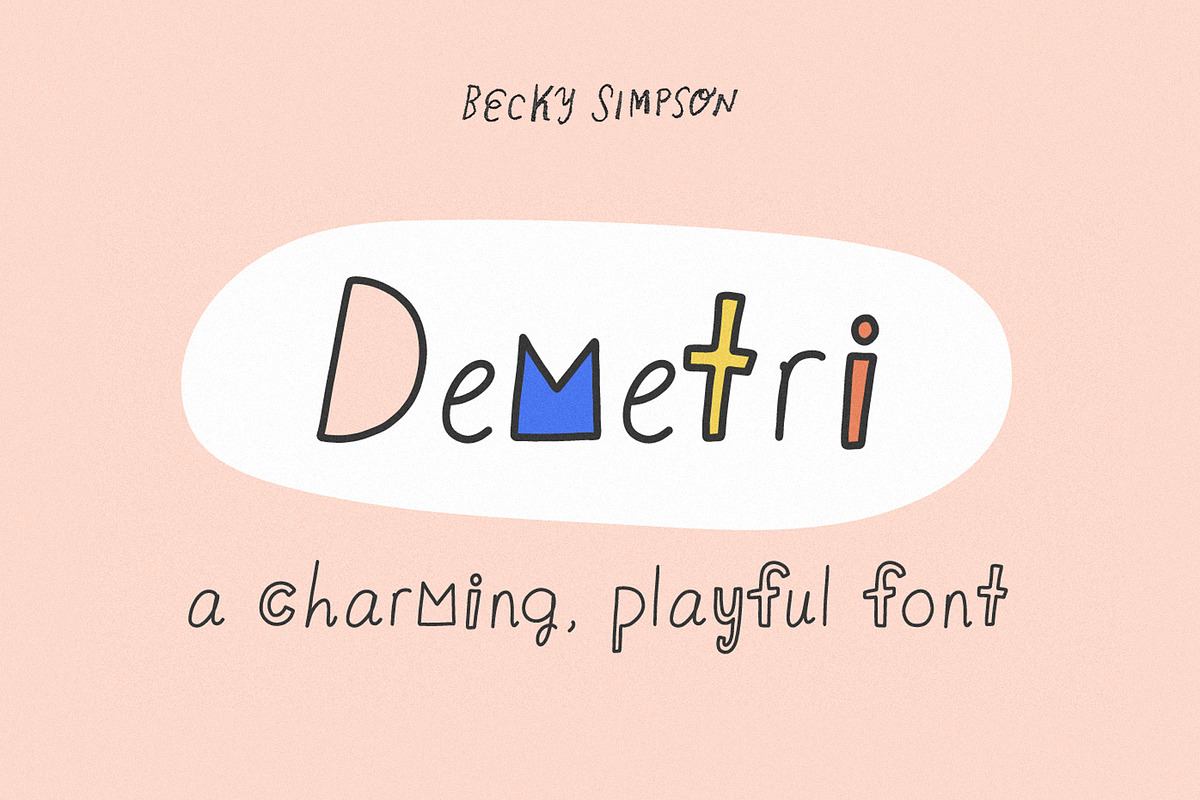
Demetri • Playful, Quirky Font Free Download
Demetri Playful, Quirky Font Free Download
Demetri Playful, Quirky Font Free Download is a fun and whimsical typeface designed with bold, quirky shapes and a playful feel. Its rounded edges and lively characters make it perfect for designs that need to feel casual, cheerful, and engaging. This font is ideal for creating logos, posters, branding, invitations, social media posts, and any design project that benefits from a friendly, approachable style.
Using the Demetri Playful, Quirky Font Free Download adds a vibrant, energetic touch to your typography. Whether you're working on a fun brand identity, creating event materials, or designing playful content for kids or casual brands, this font will help make your work stand out with personality and charm.